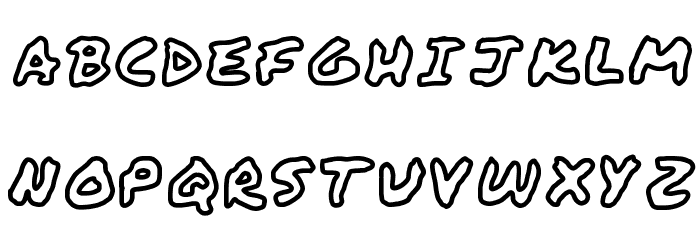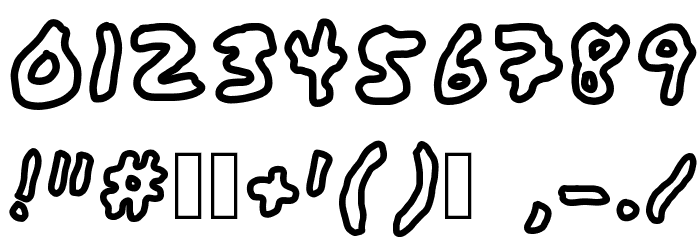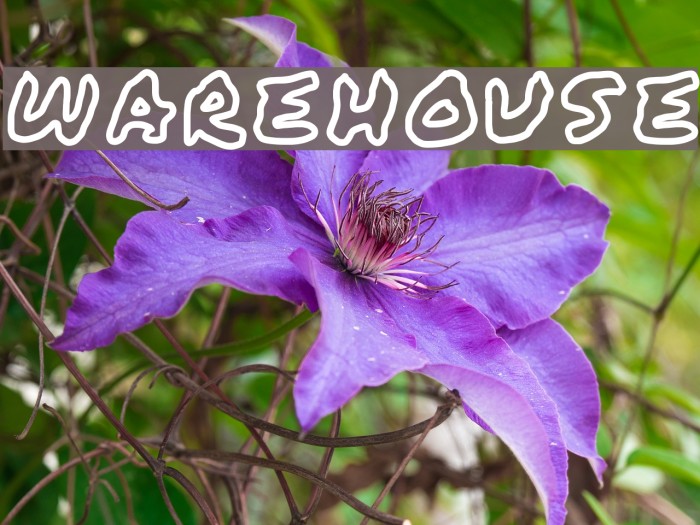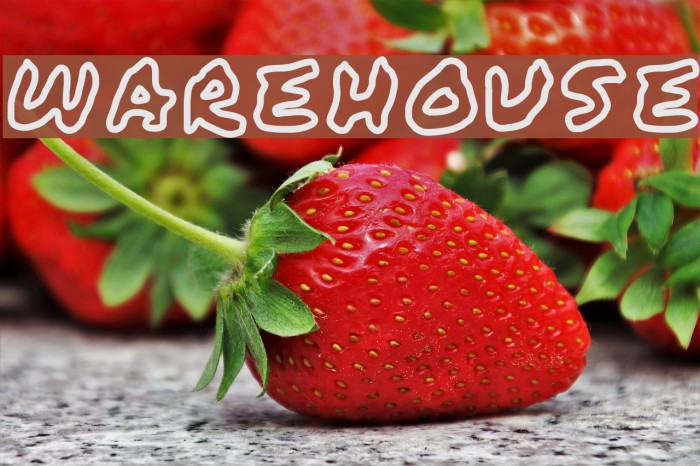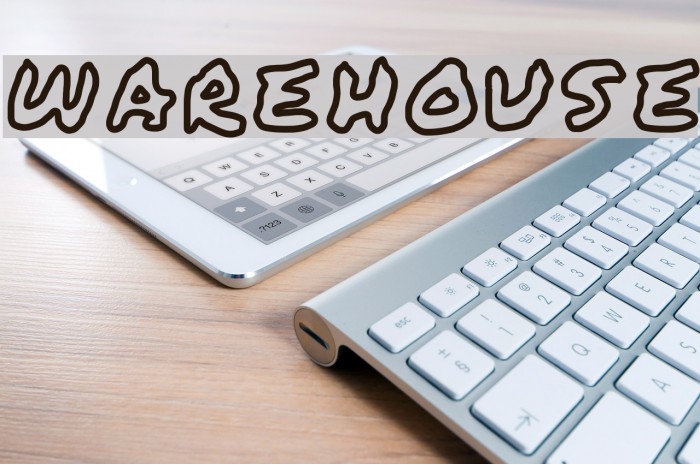
WAREHOUSE Font
This font features a bold, playful style with a hand-drawn appearance. The characters have a thick outline and a slightly irregular shape, giving them a casual and informal look. The uppercase and lowercase letters maintain a consistent style, with rounded edges and a sense of movement. The numbers and special characters follow the same design, ensuring a cohesive appearance across all elements. This font's unique style makes it stand out, ideal for projects that require a fun and engaging visual impact.
A bold, playful font with a hand-drawn, casual style.
- Proposed Projects: Ideal for children's books, comic strips, playful branding, and creative posters.
- Overall Style: Playful, Casual, Hand-drawn